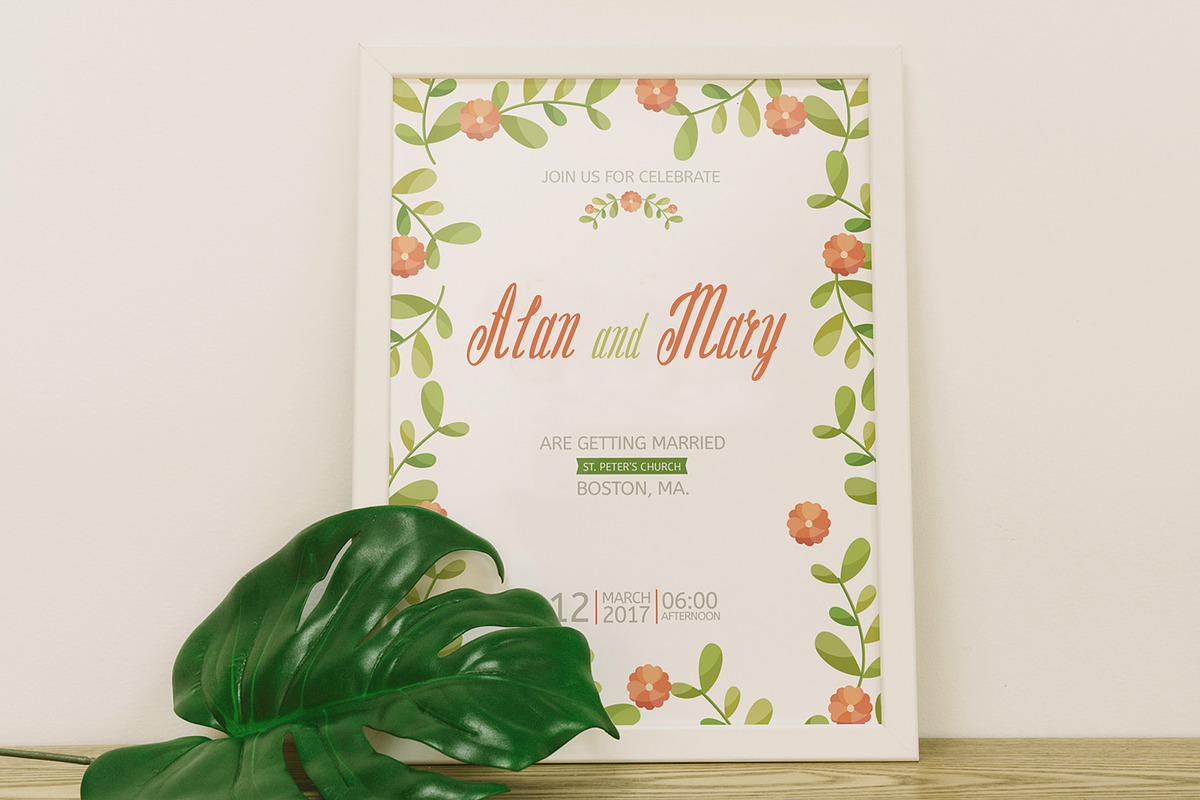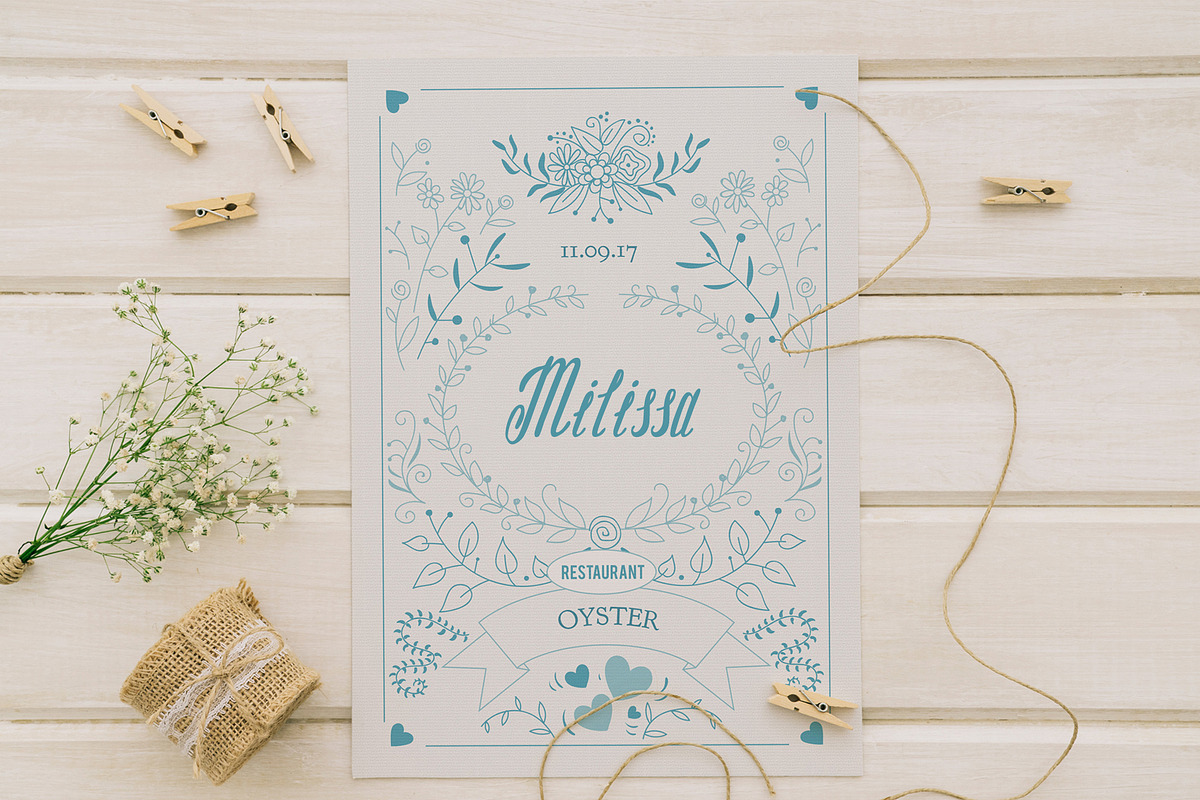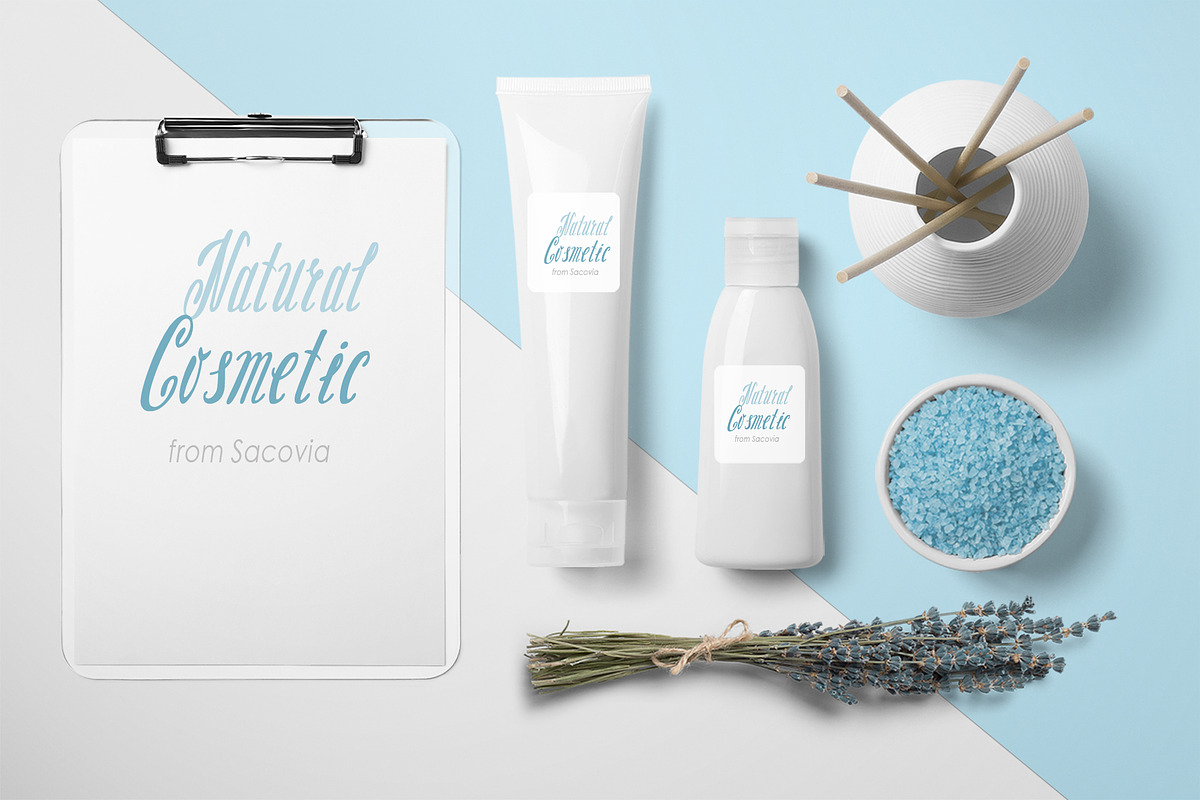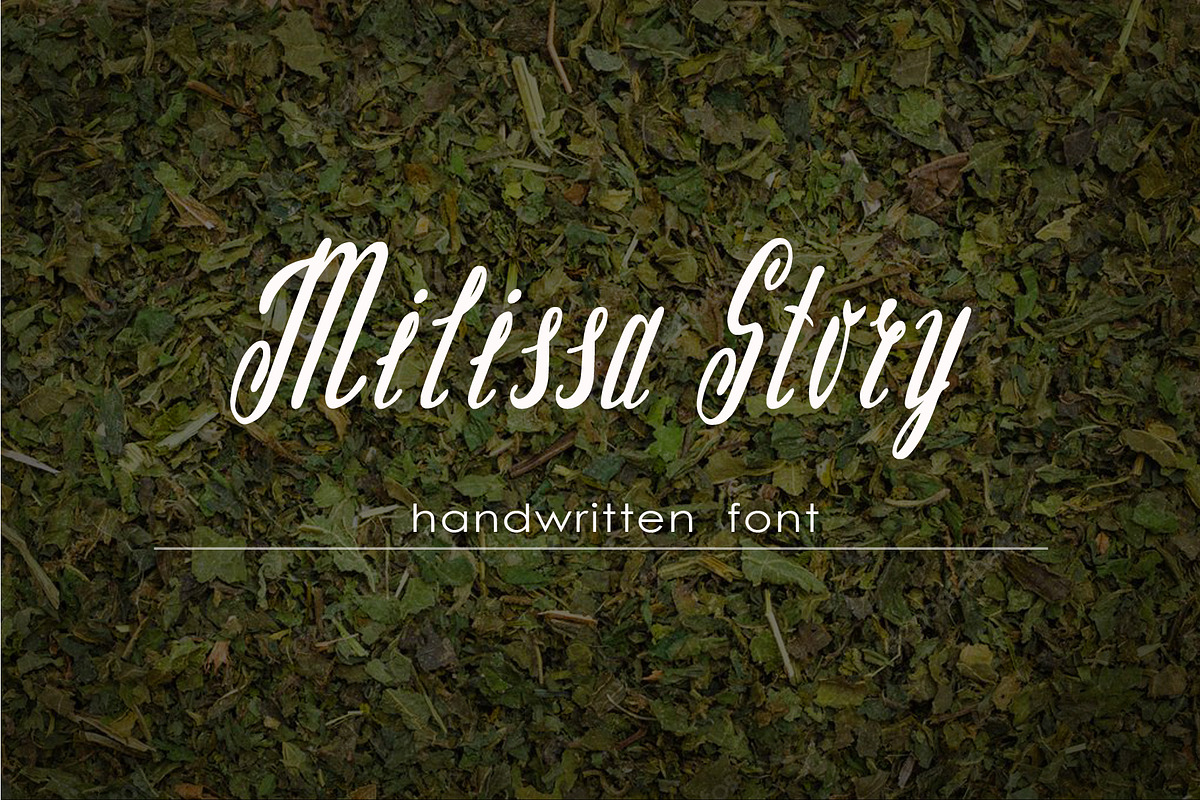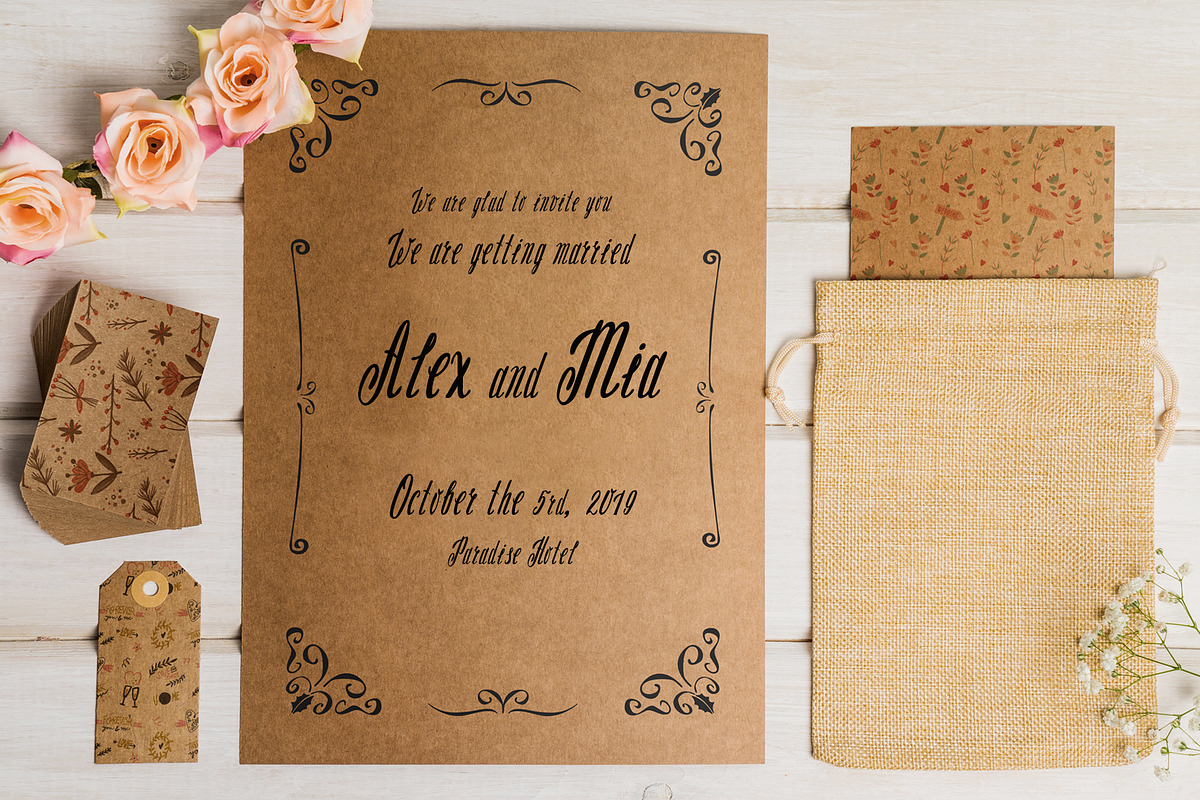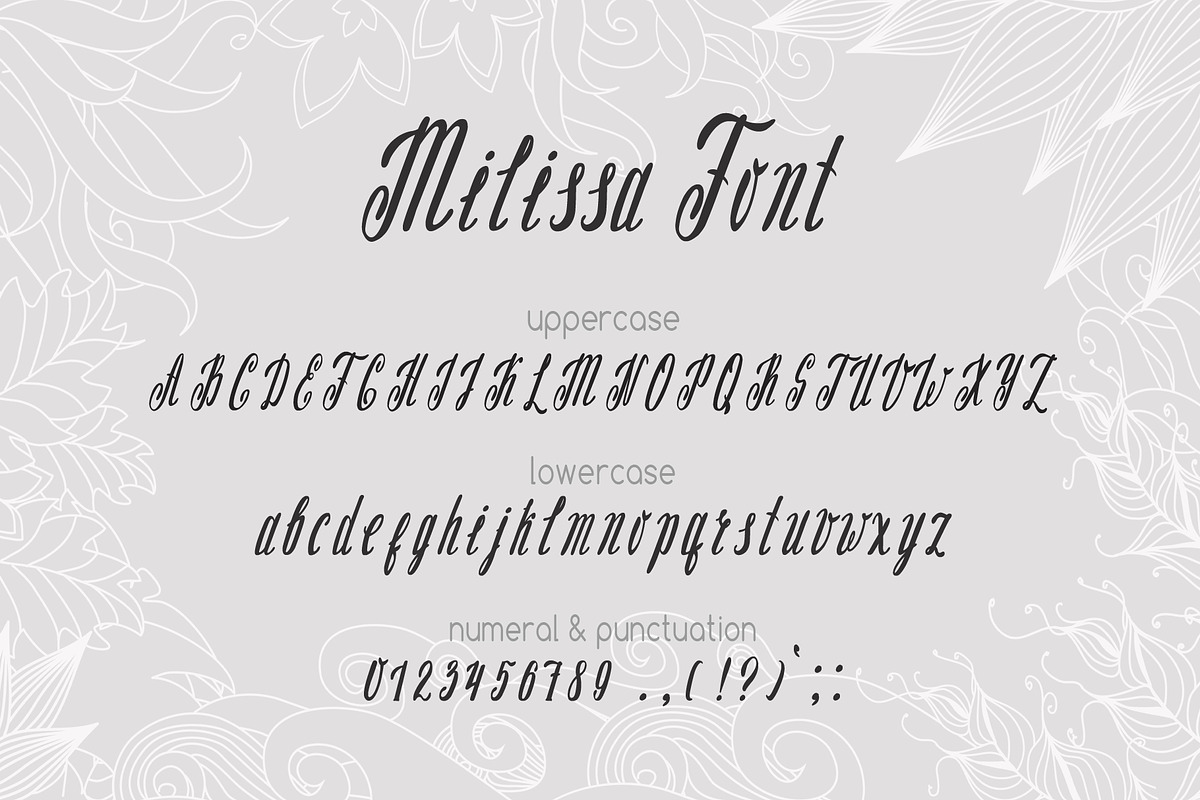
Milissa story script font
Milissa story script font is a playful lovely font with many ligatures, alternates, and doodles that giving you to make a lot of combination for your design.
- Milissa Italic
Why Milissa story script font is worth a look